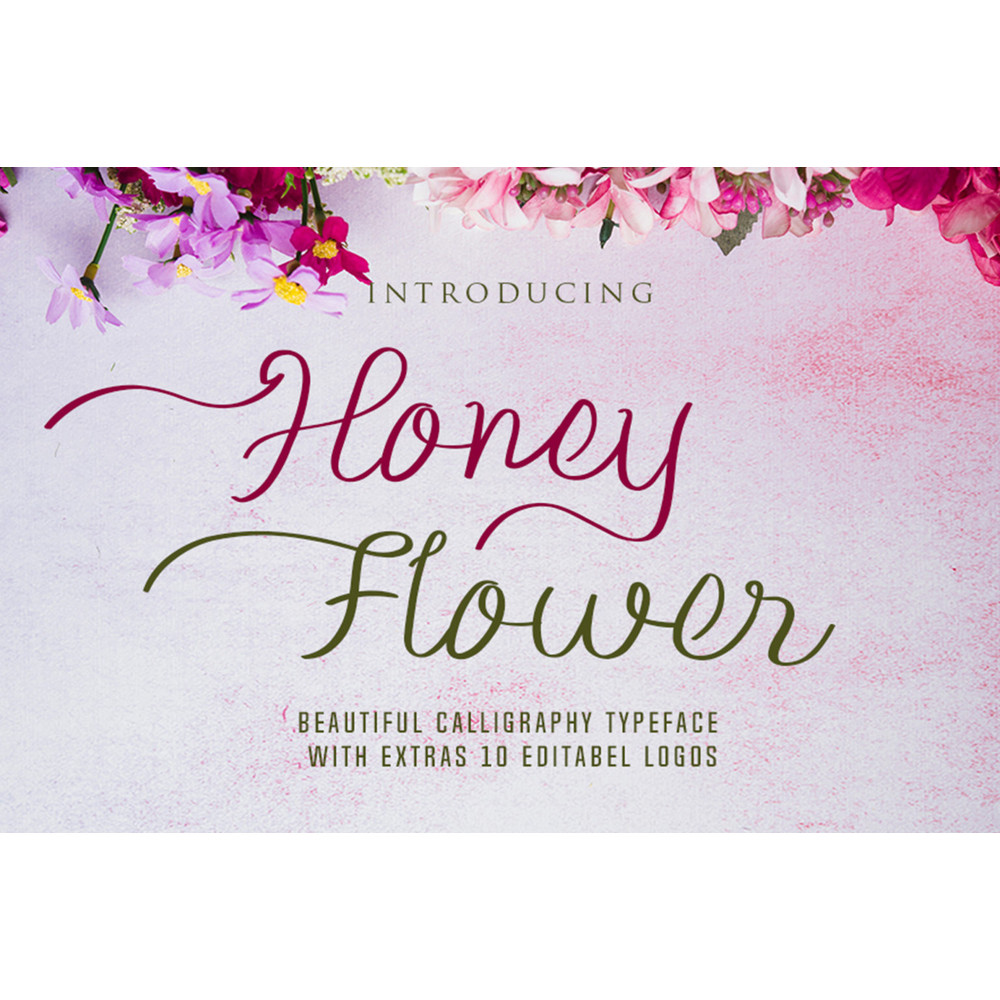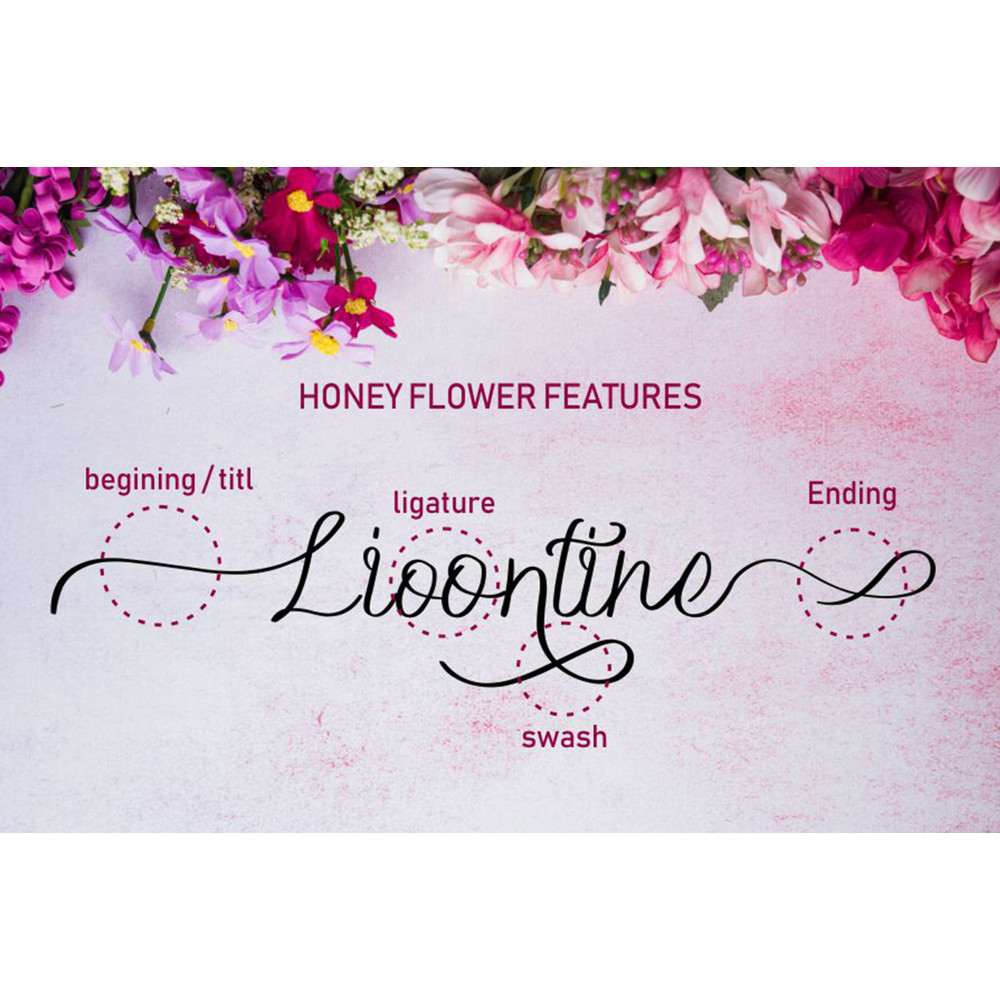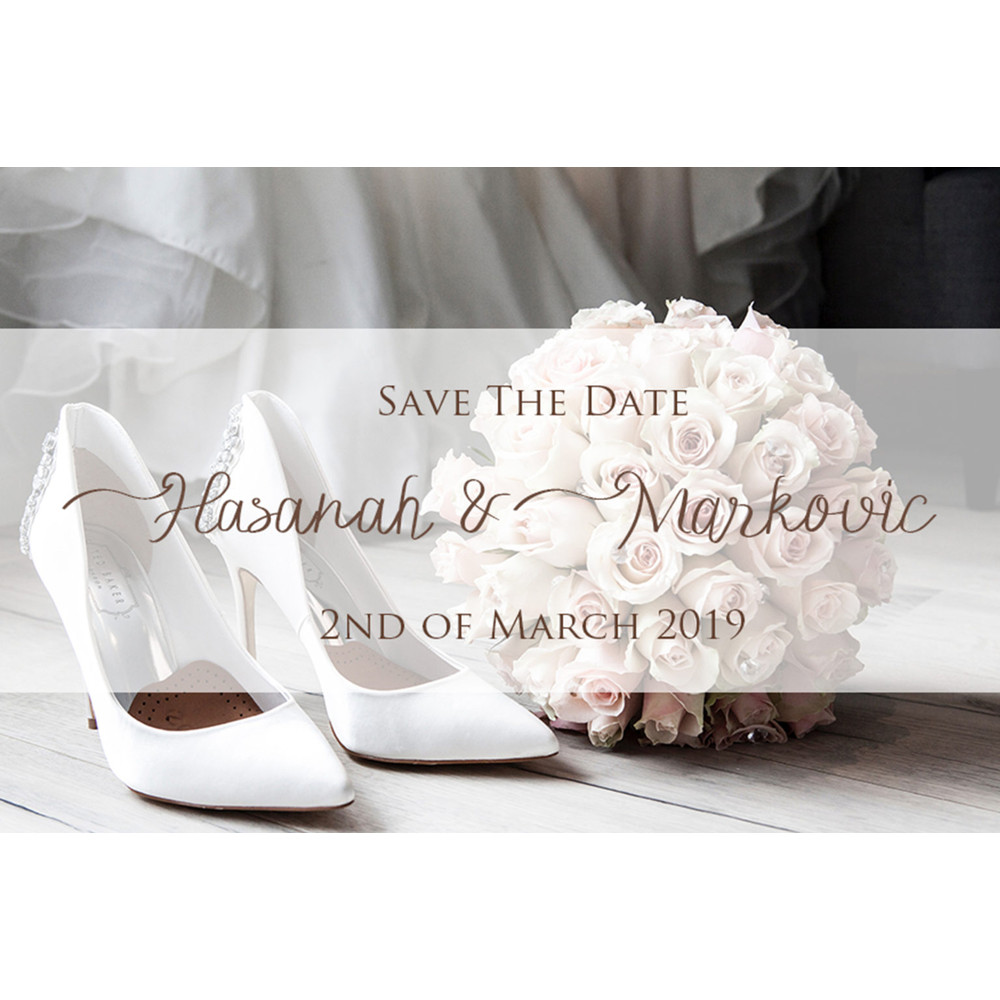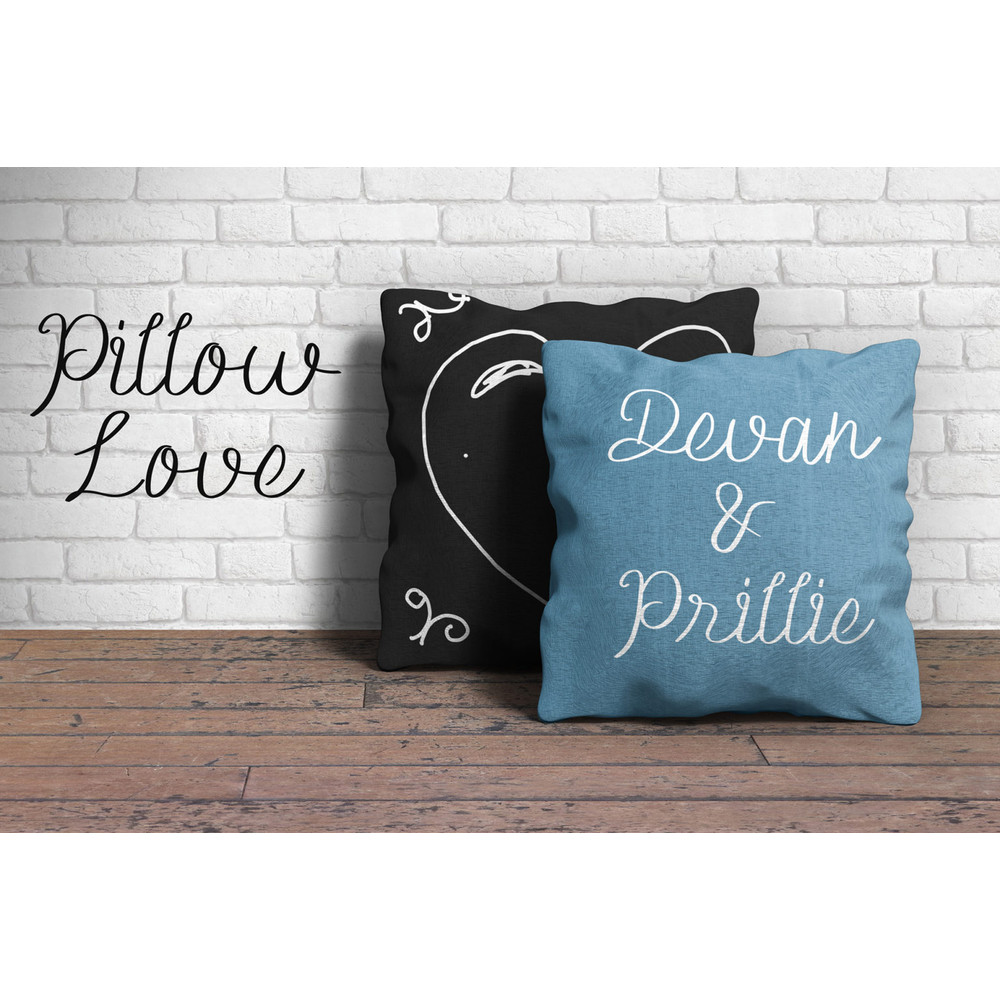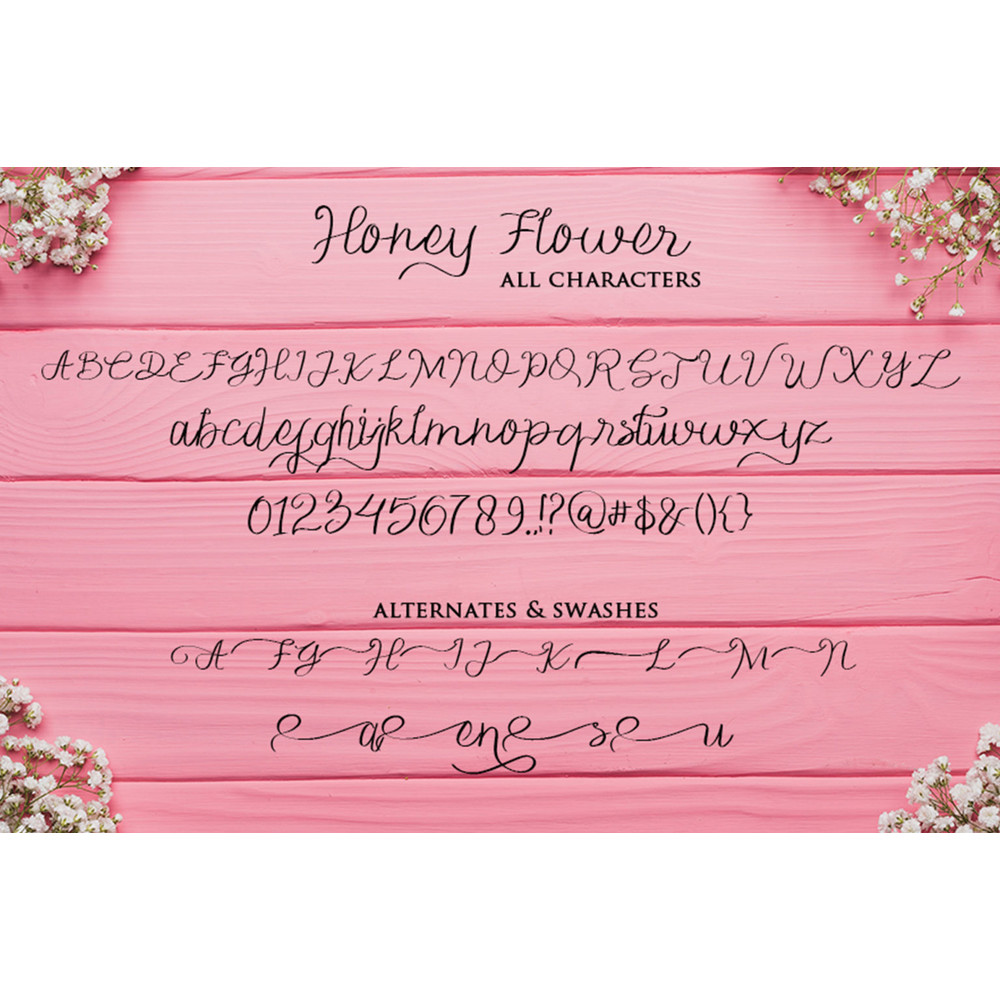
The Honey FLower is a beautiful hand-illustrated typeface. It has a playful and elegant style and includes amazing swashes to give your design a natural feel.